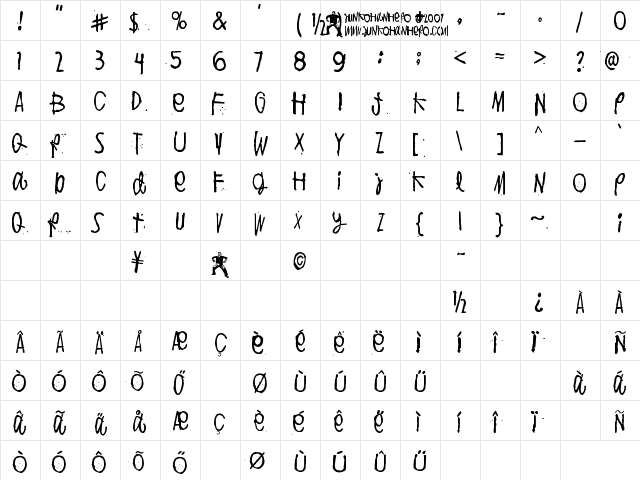
Puoli-ihminen Regular
| Designer | junkohanhero |
Design Context for Puoli-ihminen Typeface
Puoli-ihminen is a composed and adaptable typeface that performs quietly and consistently across a wide range of design contexts.